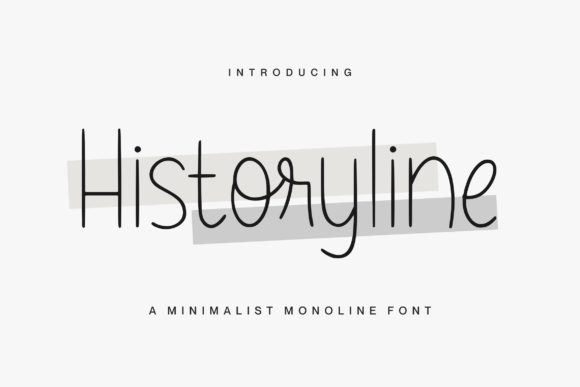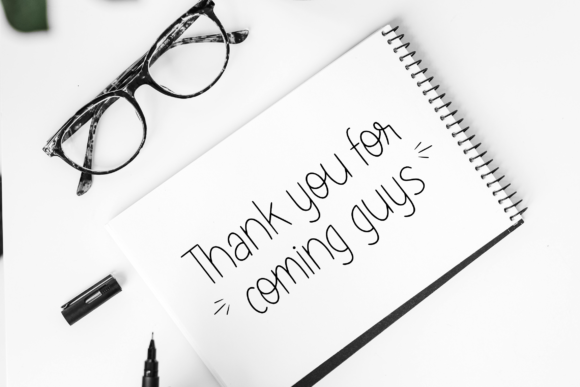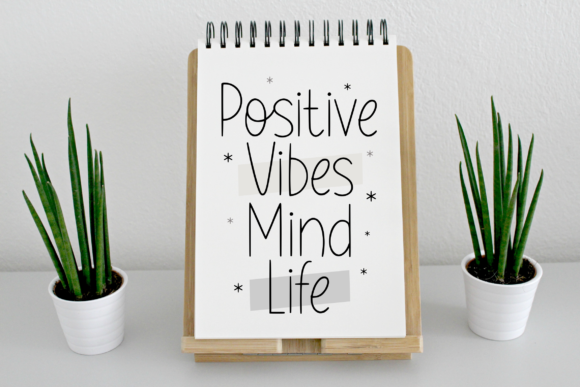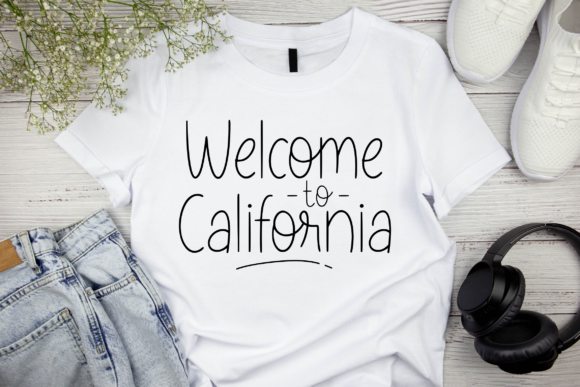
About Historyline Font
Historyline is a thin lettered and delicate script font. It has a clean, thin and smooth vibe and it will be a hit for any design that you want to add it to.